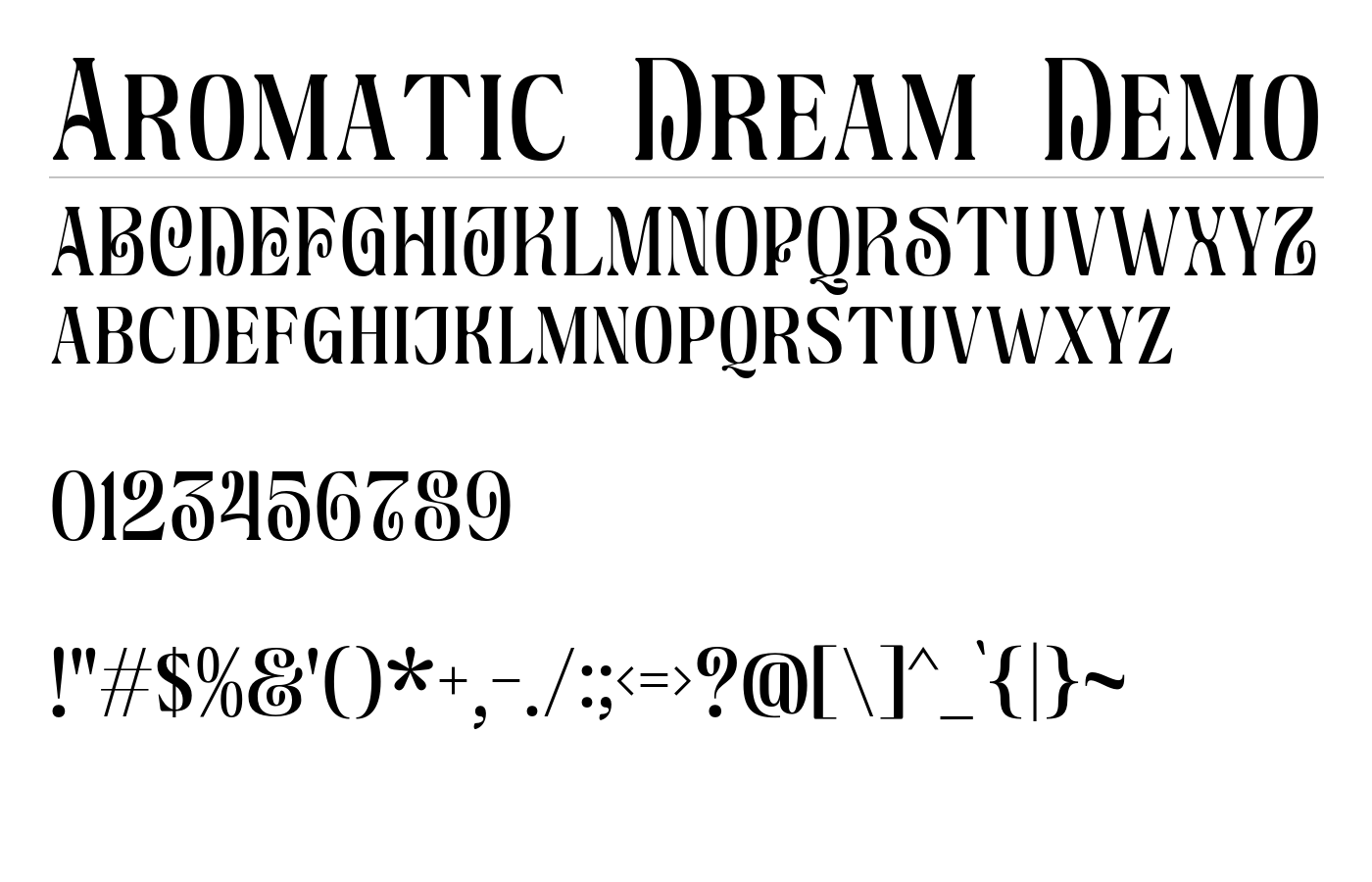
Aromatic Dream Demo is a distinctive serif font with a tall, condensed structure and high contrast between thick and thin strokes, giving it a sophisticated yet playful character. Its sharp, unbracketed serifs and unique letterforms, such as the stylized Q and ampersand, make it ideal for eye-catching headlines, logos, and luxury branding that seek to convey elegance with a touch of whimsy. This font works best in creative editorial designs and packaging where a dramatic, vintage-inspired look is desired.
Aromatic Dream Demo Font
About Aromatic Dream Demo Font